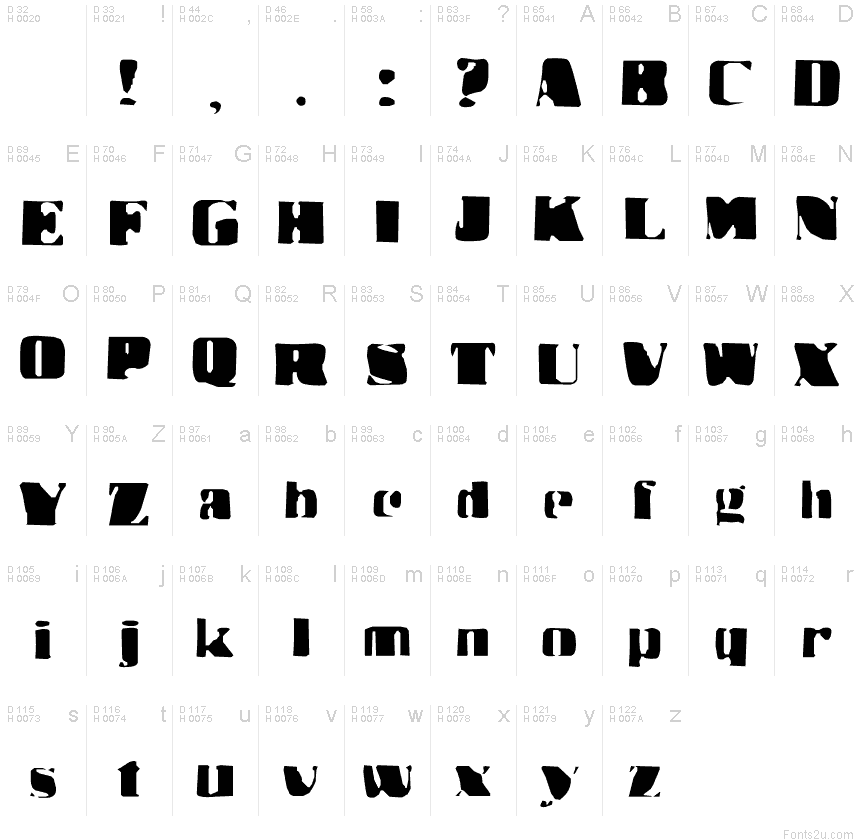
Dr.Benway
Dr.Benway font by Mike Larson [Mr.Fisk] is a free eroded display typeface that looks like it’s been dragged through ink, scraped, and stapled back together. Thick, blocky shapes are chewed away by bold holes and splatters, giving every word a distressed, bootleg-poster feel. The rhythm is uneven and slightly chaotic, so your titles feel raw, noisy, and a little dangerous, like they were pulled from a photocopied zine or a basement gig flyer.
Using Dr.Benway, you can push that gritty energy into horror movie titles, punk or metal gig posters, underground zines, dystopian game logos, protest graphics, and edgy streetwear branding. This free font works best at large sizes where the rough texture can really shout from the page. For body copy, pair it with a clean, narrow sans serif and let Dr.Benway handle the loud, attention-grabbing headlines.